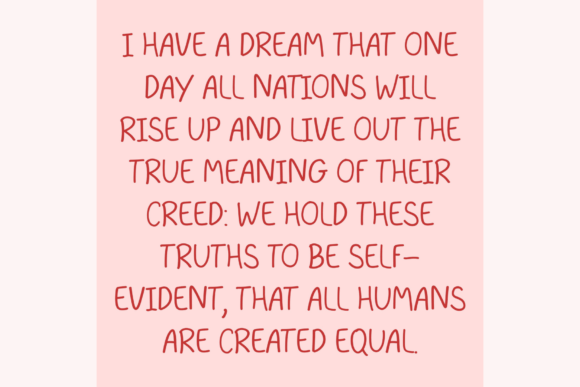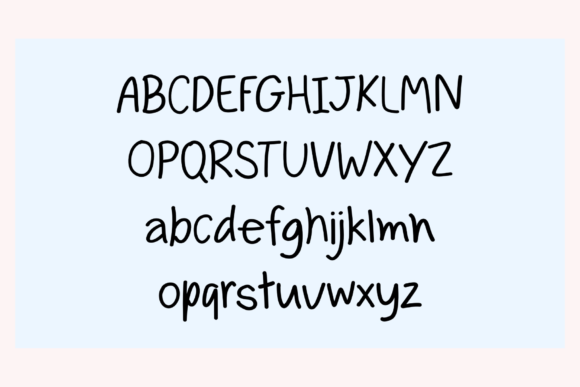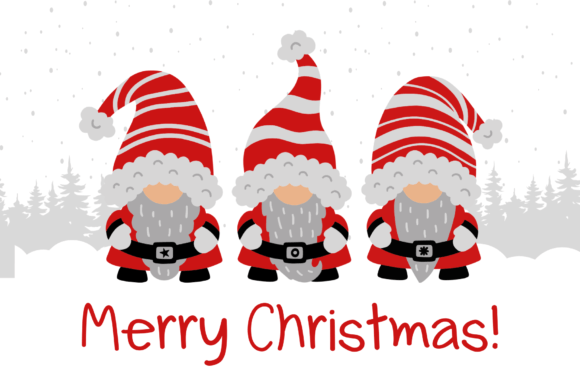
Introducing the Happy Holiday Font: A Sweet and Friendly Handwritten Display Font
Are you looking for a font that can add a fun and playful touch to your designs? Look no further than the Happy Holiday font! This sweet and friendly handwritten display font is perfect for crafts, digital design, presentations, and a wide range of other creative projects. In this article, we’ll explore the features and benefits of the Happy Holiday font, and show you how it can elevate your designs to the next level.
What is the Happy Holiday Font?
The Happy Holiday font is a beautiful, handwritten display font that is designed to bring a smile to your face. Its cute and fun design makes it ideal for use in a variety of creative projects, from wedding invitations and cards to posters, movie titles, and more. Whether you’re a designer, crafter, or teacher, this font is sure to become a favorite in your collection.
Key Features of the Happy Holiday Font
So, what makes the Happy Holiday font so special? Here are just a few of its key features:
- Cute and Fun Design: The Happy Holiday font has a playful, handwritten design that is sure to add a touch of whimsy to your projects.
- Handwritten Display Font: This font is perfect for use in titles, headings, and other display text.
- Versatile: The Happy Holiday font can be used in a wide range of creative projects, from digital design to crafts and more.
- Easy to Read: Despite its playful design, the Happy Holiday font is easy to read, making it perfect for use in body text as well as display text.
Use Cases for the Happy Holiday Font
So, what can you use the Happy Holiday font for? The possibilities are endless! Here are just a few ideas to get you started:
- Wedding Invitations and Cards: Add a touch of whimsy to your wedding invitations, thank you cards, and other stationery with the Happy Holiday font.
- Crafts: Use the Happy Holiday font to add a personal touch to your crafts, from scrapbooking to DIY home decor.
- Digital Design: The Happy Holiday font is perfect for use in digital design, from social media graphics to blog posts and more.
- Presentations: Add some personality to your presentations with the Happy Holiday font.
- Comic Book Style: The Happy Holiday font is perfect for use in comic book-style designs, from graphic novels to web comics.
- Game Online: Use the Happy Holiday font to add a playful touch to your online games, from titles to character names.
- Love Shirt: Create custom t-shirts, hoodies, and other apparel with the Happy Holiday font.
- Posters: Use the Happy Holiday font to create eye-catching posters for events, promotions, and more.
- Movie Titles: Add a touch of glamour to your movie titles, credits, and other film-related designs with the Happy Holiday font.
Why Designers and Crafters Love the Happy Holiday Font
So, why do designers and crafters love the Happy Holiday font? Here are just a few reasons:
- Unique Design: The Happy Holiday font has a unique, one-of-a-kind design that is sure to make your projects stand out.
- Versatile: The Happy Holiday font can be used in a wide range of creative projects, making it a great addition to any design or crafting toolkit.
- Fun and Playful: The Happy Holiday font is perfect for adding a touch of whimsy and fun to your projects.
| Font Name | Happy Holiday Font |
| Author | Digital Creative Art |
In conclusion, the Happy Holiday font is a sweet and friendly handwritten display font that is perfect for adding a fun and playful touch to your designs. With its cute and fun design, versatility, and ease of use, it’s no wonder that designers and crafters love this font. Whether you’re creating wedding invitations, crafts, digital designs, or any other type of project, the Happy Holiday font is sure to become a favorite in your collection.